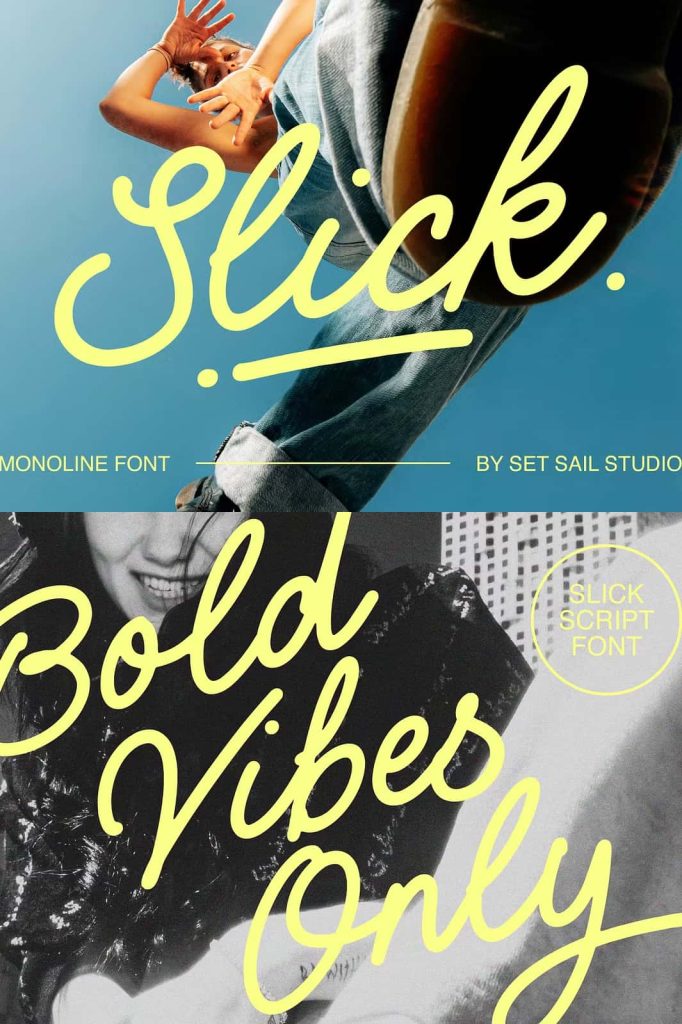
Slick Monoline Script Font with Smooth Cursive Style
Slick is a cool, clean, and silky smooth monoline script font designed to bring fresh and fun-loving cursive typography into your creative projects. With its flowing strokes and consistent line weight, Slick delivers a modern handwritten look that feels both relaxed and confident. This monoline script font helps you create expressive designs while maintaining clarity and balance.
Every letter in Slick flows naturally into the next, creating seamless word compositions that feel authentic and stylish. The smooth curves and rounded edges give your text a friendly yet professional tone. Whether you design for branding, social media, or print, Slick empowers you to craft typography that feels lively and full of personality.
Clean and Silky Smooth Monoline Letterforms
Slick features a carefully crafted monoline structure, which means each stroke maintains a consistent thickness from start to finish. This clean construction creates a polished and modern appearance while preserving the charm of handwritten script. The even line weight enhances readability and ensures your message remains clear across different sizes and layouts.
The smooth curves and balanced spacing allow you to design elegant headlines, eye-catching quotes, and distinctive brand signatures. Slick does not overpower your layout. Instead, it enhances your design with subtle sophistication and playful energy. The result is a versatile script font that feels both fresh and timeless.
Full Character Set with Powerful Alternates
Slick includes a complete Regular set of uppercase and lowercase characters, numbers, and punctuation. Beyond the standard set, this monoline script font also provides a full Alternate set of upper and lowercase characters available in a separate font file. These alternates give you more creative control and allow you to customize your typography with ease.
By switching between regular and alternate characters, you can avoid repetitive letterforms and create more dynamic wordmarks. This feature proves especially valuable for logo design, branding projects, and custom typography where originality matters. You can quickly transform a simple word into a unique typographic statement.
26 Decorative Swashes for Extra Style
Slick goes beyond basic script features by including 26 stylish swashes. These swashes allow you to underline words, frame phrases, and add decorative flourishes to your compositions. Each swash is available in its own separate font file, making it simple to access and use.
To generate a swash, you simply type any letter from a to z, and the corresponding underline flourish appears. This intuitive system saves time and streamlines your workflow. You can easily enhance logos, quotes, invitations, and social media graphics with elegant finishing touches that feel intentional and refined.
Perfect for Branding and Logo Design
Slick monoline script font works exceptionally well for logos and branding. Its smooth cursive style communicates friendliness, creativity, and authenticity. Use it to design signature-style logos, boutique branding, product packaging, and personal brand identities that connect emotionally with audiences.
The combination of regular characters, alternates, and swashes allows you to build distinctive logotypes that stand out in competitive markets. Slick helps you shape a memorable visual identity while maintaining a clean and modern aesthetic.
Ideal for Social Media, Packaging, and Print
Create engaging Instagram posts, stylish story templates, and scroll-stopping social media graphics with Slick. Its fresh script style captures attention quickly and adds personality to digital content. The font also performs beautifully in print projects such as invitations, greeting cards, posters, and merchandise designs.
Use Slick to elevate packaging design, labels, and promotional materials. The smooth monoline strokes maintain clarity when printed on various materials, from paper to fabric. This flexibility ensures your typography looks consistent and professional across multiple platforms.
Flexible and Easy to Use
Slick offers a user-friendly structure that makes it easy to integrate into your design workflow. The separate font files for alternates and swashes keep your character sets organized and accessible. You can experiment freely, mix styles, and refine your compositions without technical complexity.
Whether you create modern branding, handcrafted-style graphics, or elegant event stationery, this monoline script font gives you the tools to design with confidence. Slick encourages creativity, enhances visual storytelling, and helps you produce typography that feels smooth, fresh, and full of life.
Bring Fresh Energy to Your Typography
Slick transforms ordinary text into expressive cursive compositions. Its cool, clean structure and extra features empower you to design with flexibility and style. Choose Slick monoline script font to add smooth flow, creative alternates, and decorative swashes to your next project, and watch your designs come alive with modern handwritten charm.